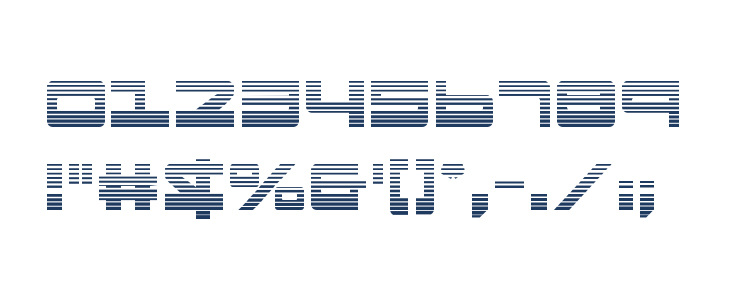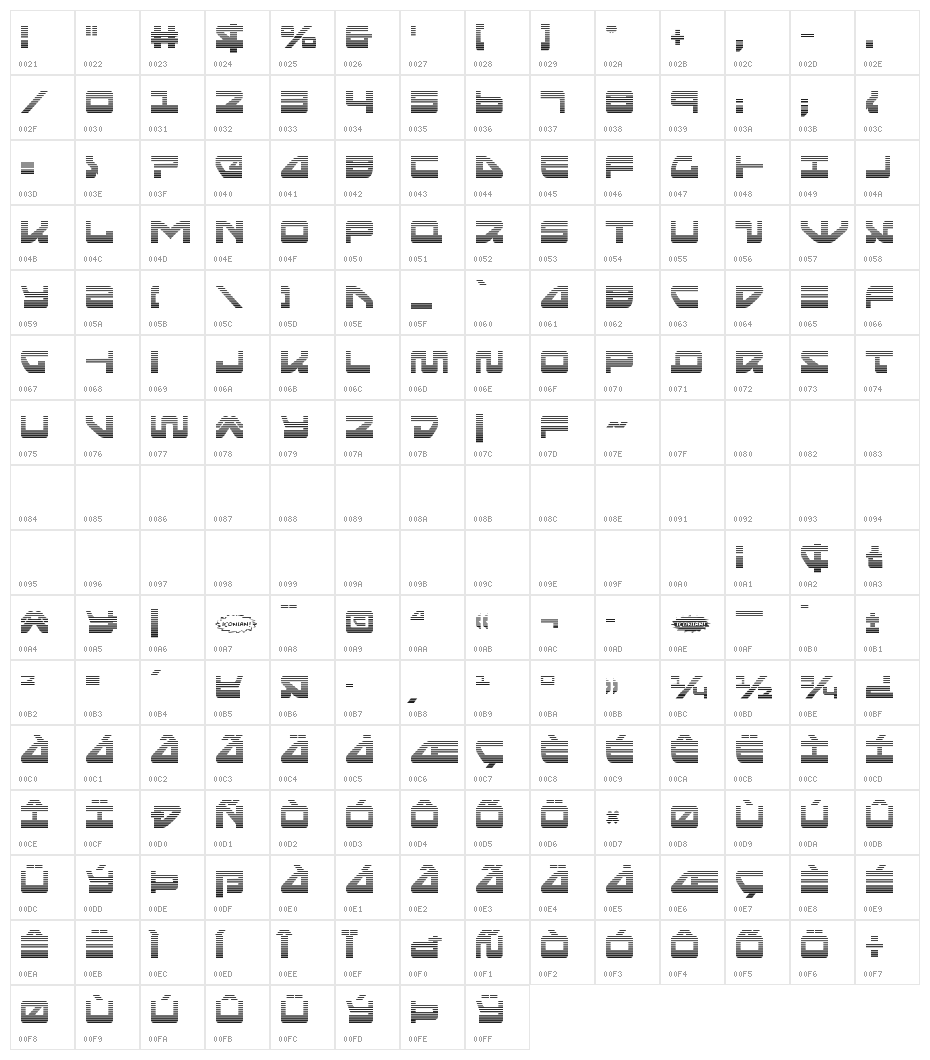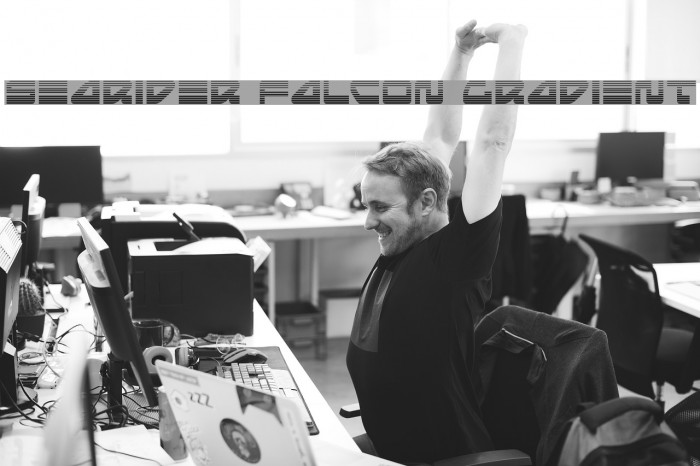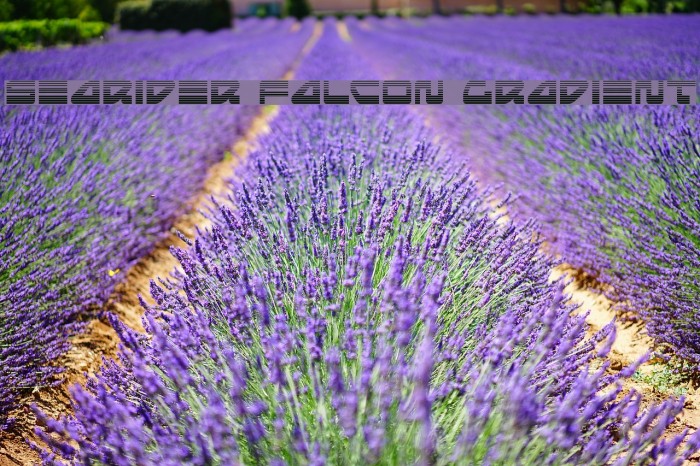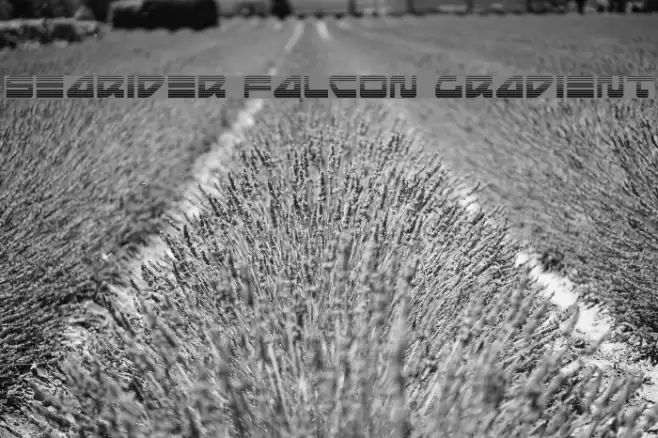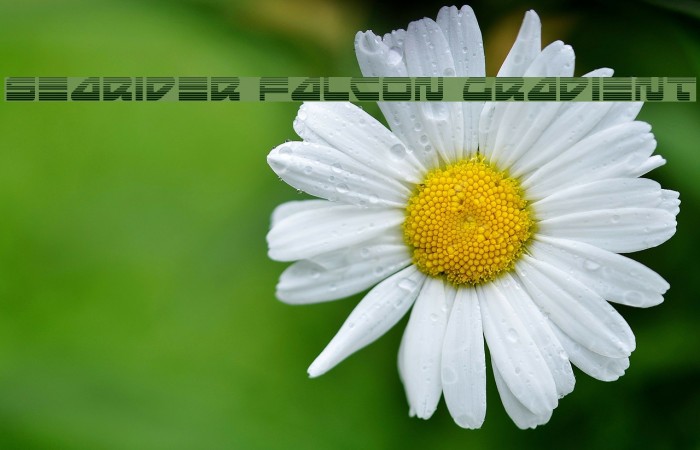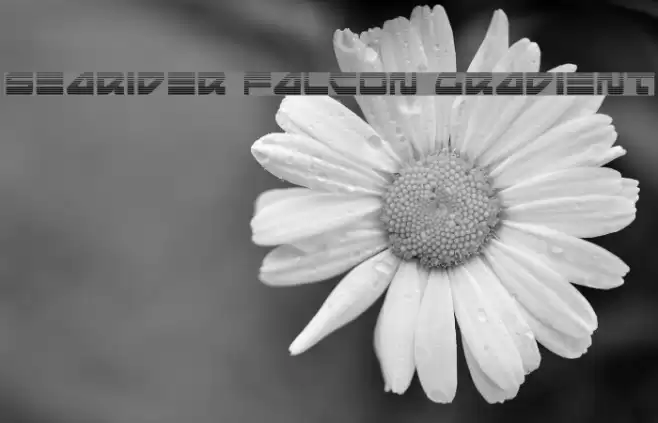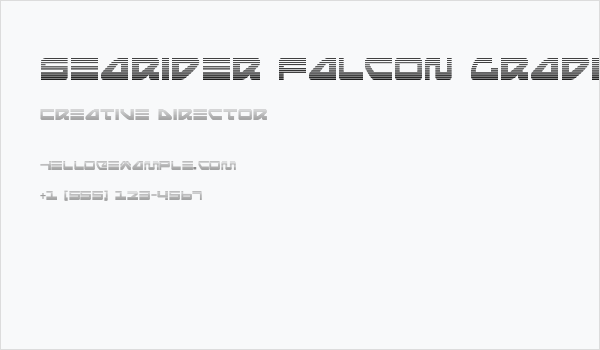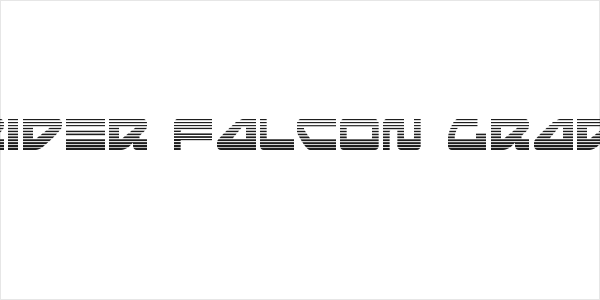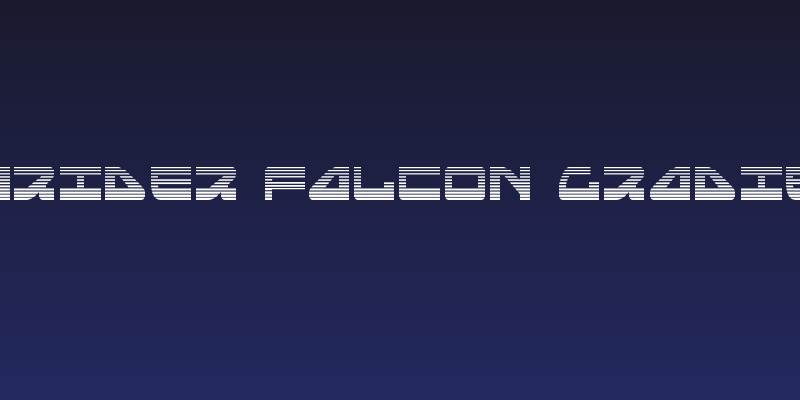
Searider Falcon Gradient Font
Searider Falcon Gradient Description
This font features a futuristic and geometric design with a unique gradient effect created by horizontal lines. Each character is composed of multiple parallel lines that form a cohesive letter shape, giving it a dynamic and modern appearance. The font maintains a consistent structure across uppercase, lowercase, numbers, and special characters, making it versatile for various design applications. Its bold and striking look is ideal for projects that require a strong visual impact.
| Proposed Projects | Ideal for sci-fi themed designs, technology branding, video game titles, and modern posters. |